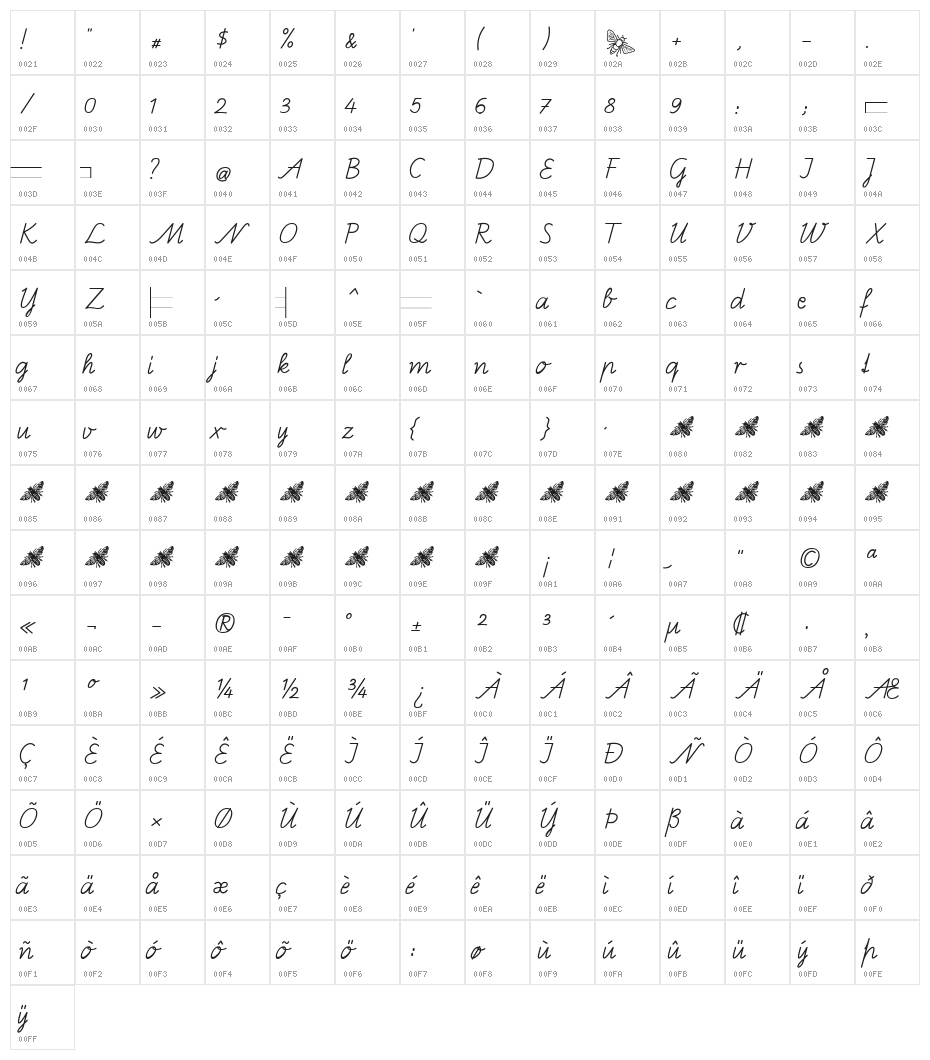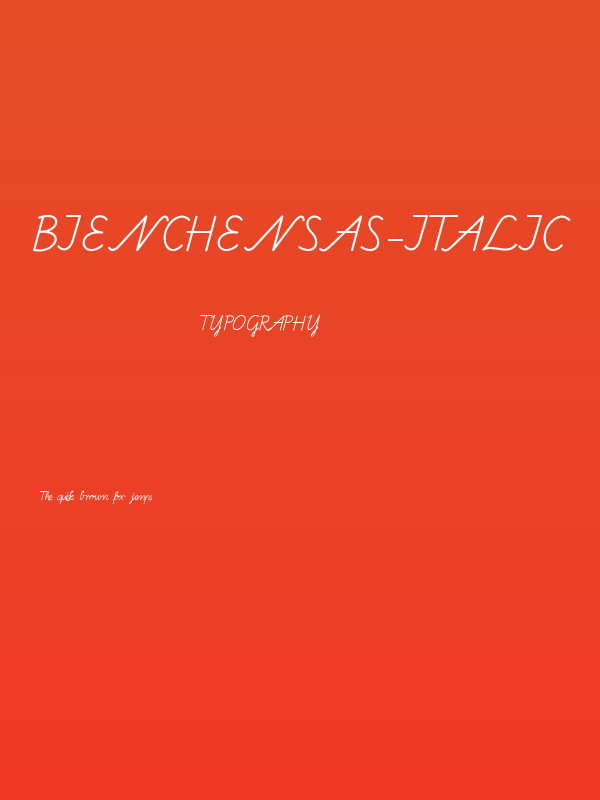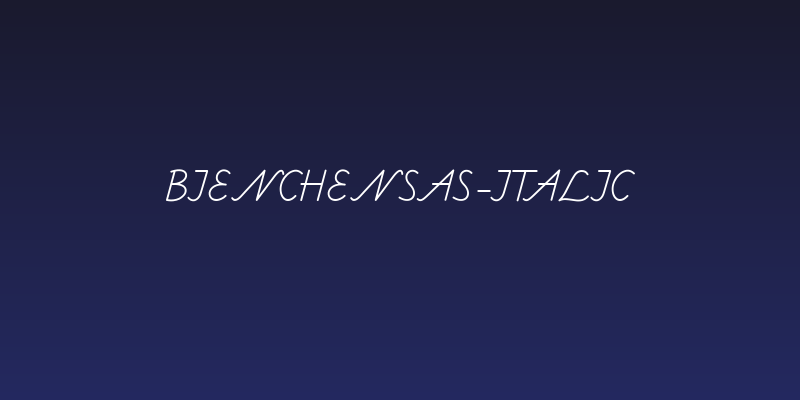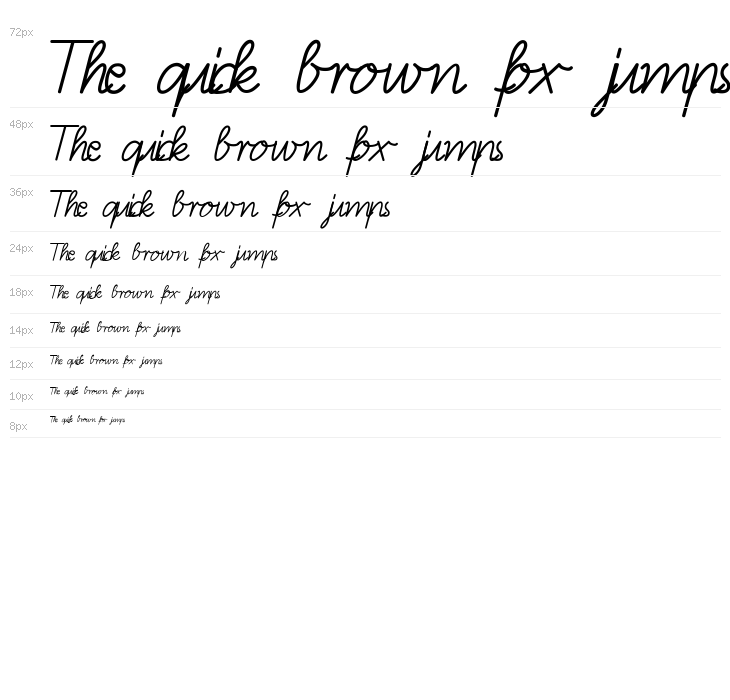
BienchenSAS-Italic Font
BienchenSAS-Italic Description
This font features a flowing, cursive style that mimics elegant handwriting. The characters are connected, creating a seamless and fluid appearance. The uppercase letters are slightly more elaborate, with graceful loops and curves, while the lowercase letters maintain a consistent and smooth flow. The numerals are clear and easy to read, maintaining the same cursive style. Special characters are included, adding versatility to the font. The overall look is sophisticated and artistic, making it suitable for creative and personal projects.